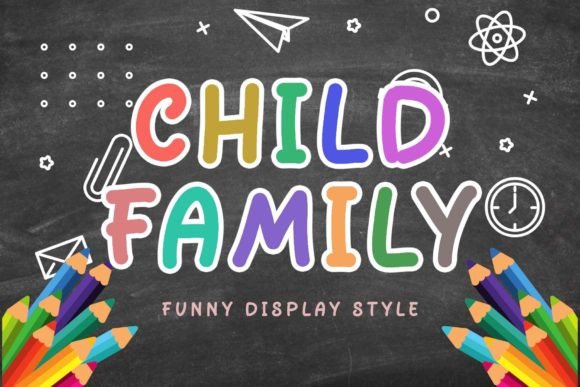
Introducing Child Family Font: The Ultimate Display Font for Family-Friendly Projects
In the world of typography, fonts play a crucial role in conveying messages, expressing emotions, and creating a lasting impression. When it comes to designing materials for family-friendly projects, a font that exudes warmth, playfulness, and approachability is essential. This is where the Child Family Font comes into play – a unique, cute display font that is perfect for a wide range of applications, from back to school and teacher appreciation to Christmas and 4th of July celebrations.
Key Features of Child Family Font
- Uppercase and Lowercase Letters: The Child Family Font includes both uppercase and lowercase letters, making it versatile for various design purposes.
- Numerals and Punctuations: The font comes equipped with numerals and punctuations, ensuring that you have everything you need to create comprehensive designs.
- Multilingual Support: With multilingual support, the Child Family Font can be used for projects targeting diverse audiences, making it an excellent choice for global brands and designers.
Ideal Use Cases for Child Family Font
The Child Family Font is incredibly versatile and can be used for a variety of projects, including:
- Back to School: Create eye-catching posters, banners, and stickers for back to school promotions and events.
- Teacher Appreciation: Design heartwarming cards, posters, and gifts for teacher appreciation days.
- Father’s Day: Craft personalized gifts, cards, and banners for Father’s Day celebrations.
- Christmas and 4th of July: Use the font to create festive decorations, invitations, and party materials for these special occasions.
- Summer Camps and Programs: Develop engaging promotional materials for summer camps, programs, and activities.
- Logos and Branding: Utilize the Child Family Font to create memorable logos and branding materials for family-friendly businesses and organizations.
- Mugs and Merchandise: Design fun and quirky mugs, stickers, and other merchandise featuring the Child Family Font.
Design Tips for Using Child Family Font
To get the most out of the Child Family Font, consider the following design tips:
- Mix and Match: Combine the Child Family Font with other fonts to create visually appealing contrasts and hierarchies.
- Play with Colors: Experiment with bright, playful colors to bring out the font’s cheerful personality.
- Add Texture and Patterns: Incorporate texture and patterns to add depth and visual interest to your designs.
- Keep it Simple: Don’t be afraid to keep your design simple and clean, allowing the font to take center stage.
Benefits of Using Child Family Font
By choosing the Child Family Font for your design projects, you can enjoy several benefits, including:
- Uniqueness: The Child Family Font offers a distinctive, one-of-a-kind look that sets your designs apart from the crowd.
- Versatility: The font’s wide range of applications makes it an excellent addition to any designer’s toolkit.
- Emotional Connection: The font’s playful, friendly personality helps create an emotional connection with your audience, making your designs more relatable and engaging.
In conclusion, the Child Family Font is an exceptional display font that is perfect for family-friendly projects, from back to school and teacher appreciation to Christmas and 4th of July celebrations. With its unique features, versatility, and emotional appeal, this font is sure to become a staple in your design toolkit. So why wait? Download the Child Family Font today and start creating engaging, memorable designs that delight your audience!